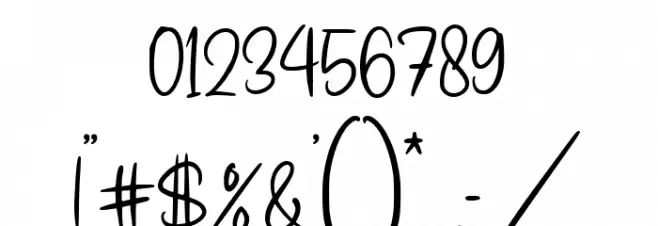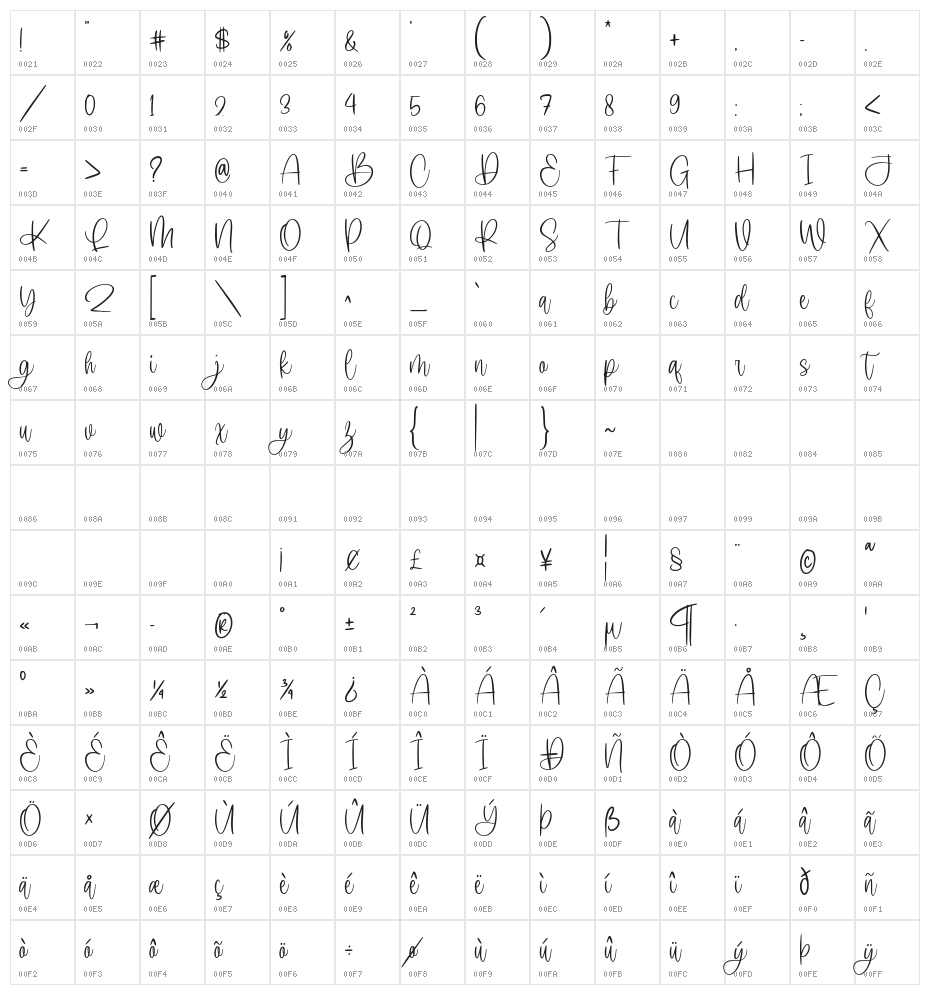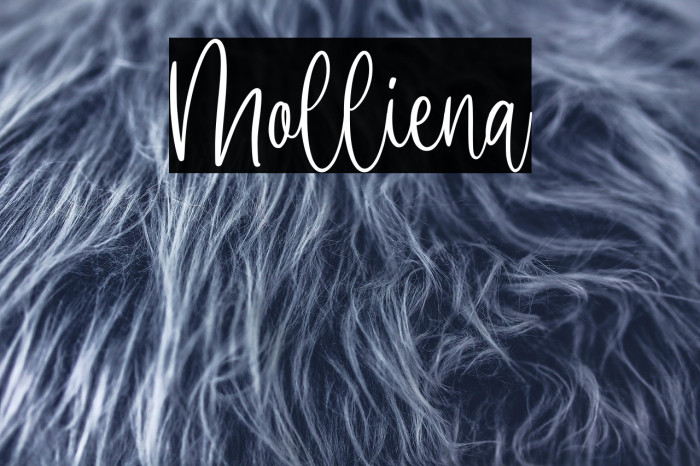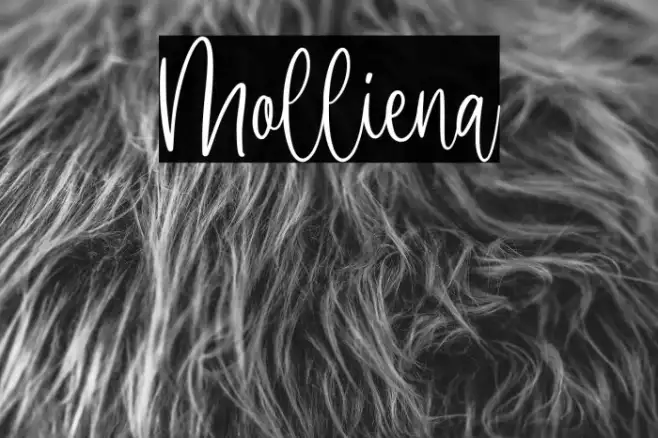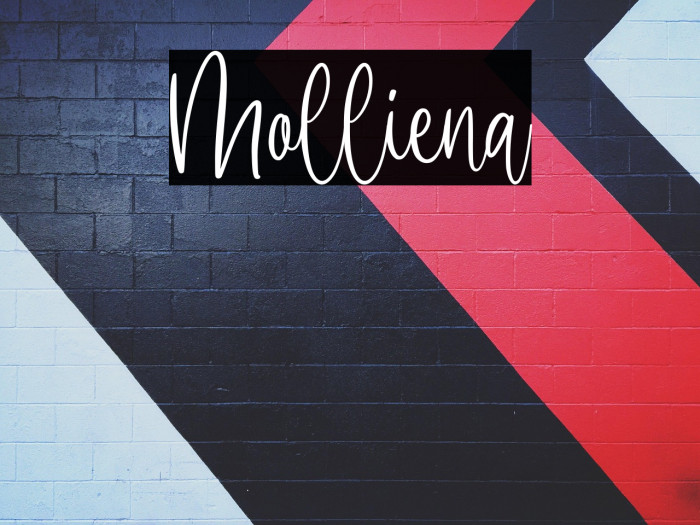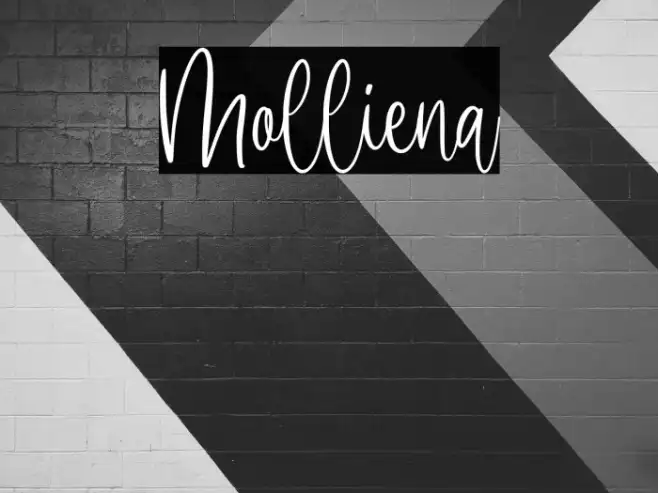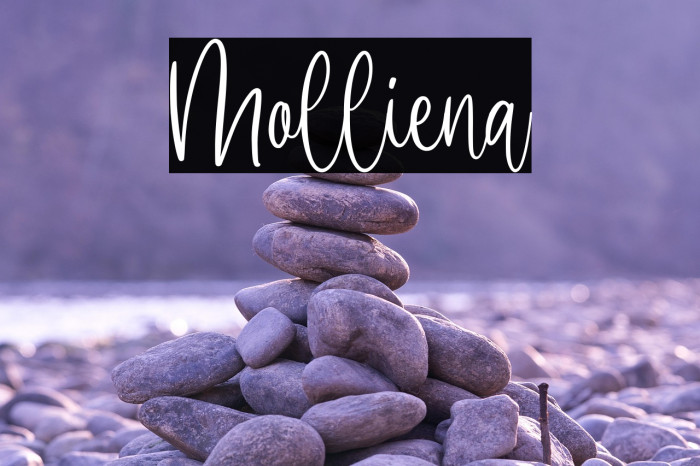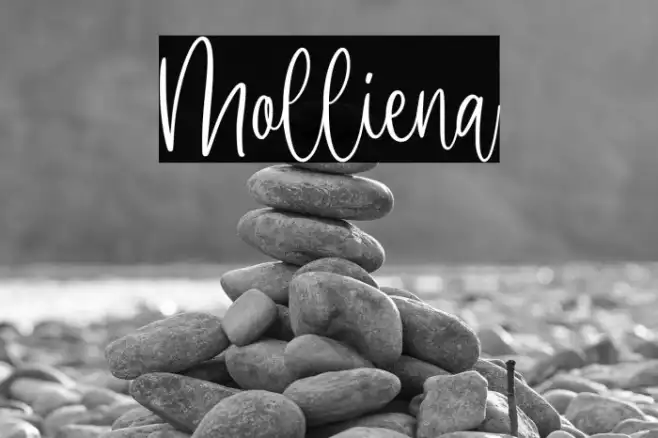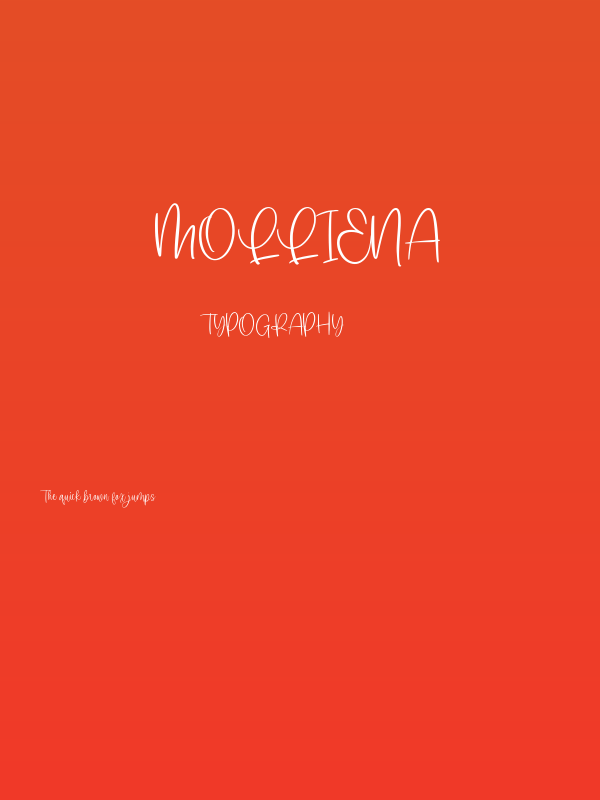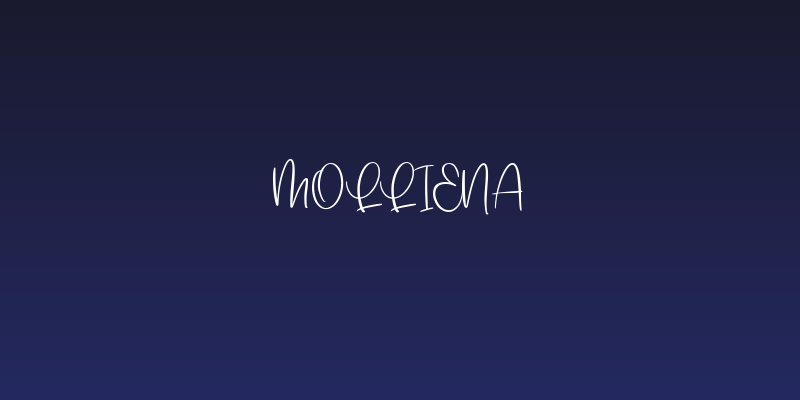
Molliena Font
Molliena Description
This font features a playful and whimsical script style, characterized by its flowing, interconnected letters and a hand-drawn appearance. The uppercase letters are bold and expressive, with unique loops and curves that give each character a distinct personality. The lowercase letters maintain a consistent flow, enhancing the font's overall elegance and charm. Numbers and special characters are crafted with the same attention to detail, ensuring a cohesive look across all text elements. The font's informal yet sophisticated style makes it suitable for a variety of creative projects.
| Proposed Projects | Ideal for wedding invitations, greeting cards, branding, and social media graphics. |